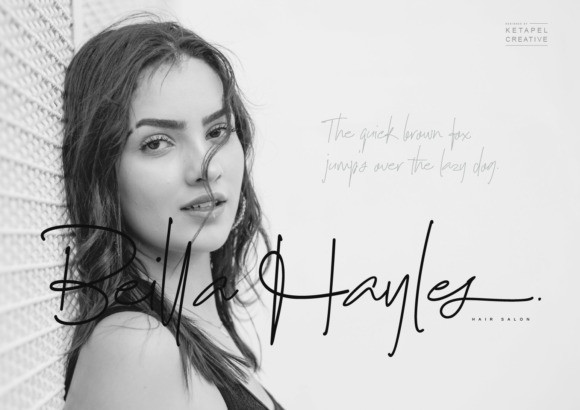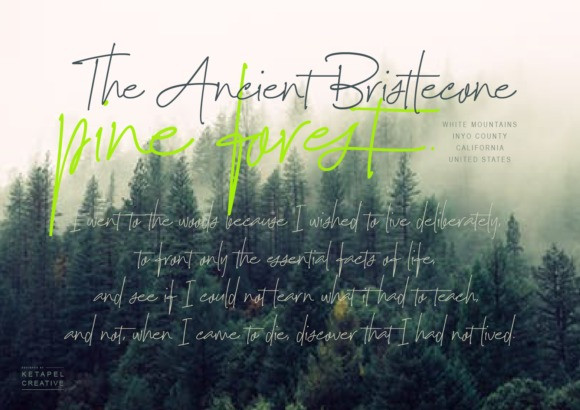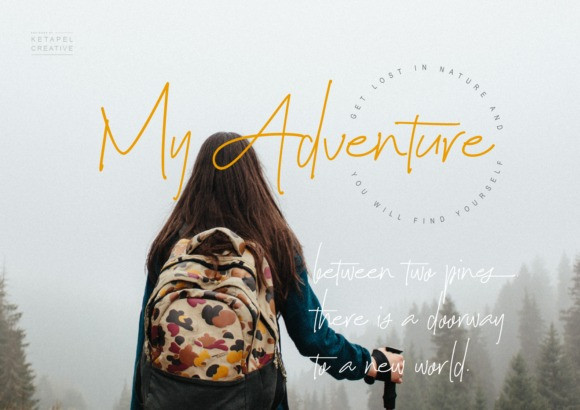
Nayla Signattures Handwritten Font
Nayla Signature is a handwritten font that feels equally charming and elegant. Fall in love with its authentic feel and use it to create gorgeous wedding invitations, beautiful stationary art, eye-catching social media posts, and cute greeting cards.